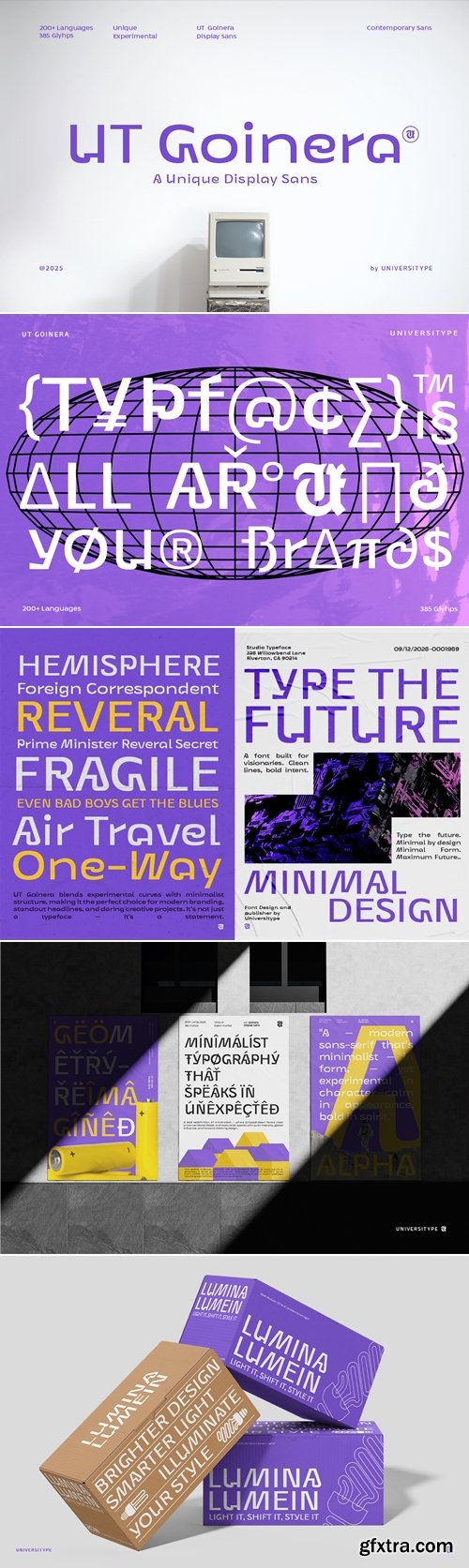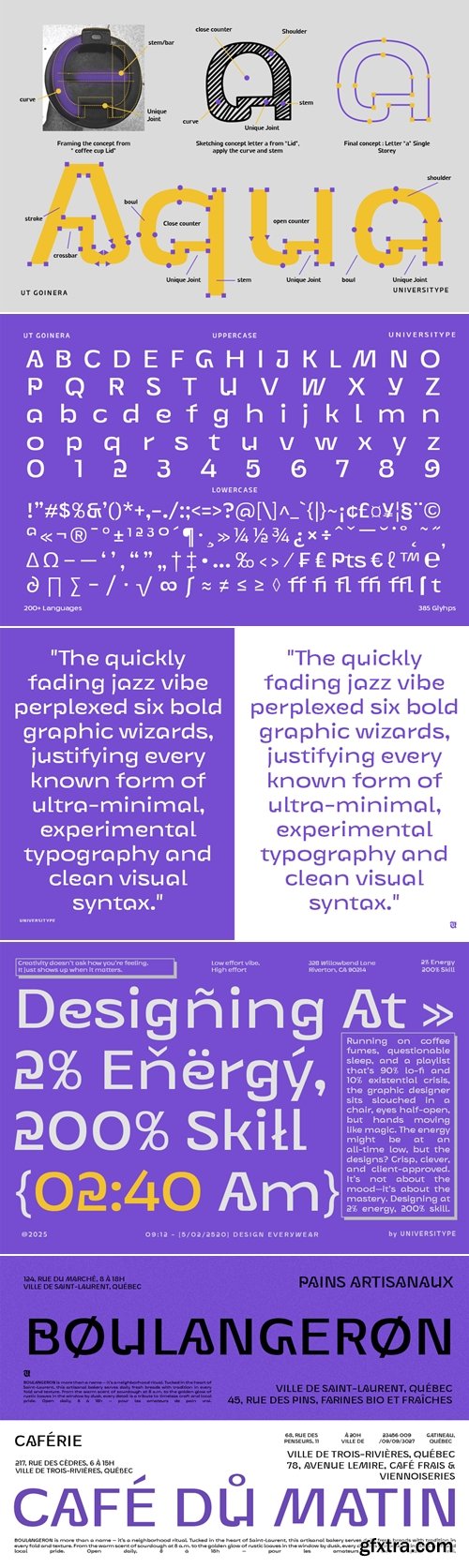
- UT Goinera: The Modern Typeface That Brings Warmth to Your Design In the world of typography, simplicity often meets sophistication in the most unexpected ways. UT Goinera is a prime example of this blend, a typeface that draws its inspiration from the everyday yet delivers a design that feels both thoughtful and modern. This minimal geometric typeface is perfect for designers, branding experts, UI/UX professionals, and creatives who appreciate clean structure with a touch of personality.
- The Inspiration Behind UT Goinera The journey of UT Goinera began with a seemingly mundane object: a coffee cup lid. The way the lid curves, locks together, and creates a satisfying closure sparked the idea of translating these tactile forms into a font structure. This inspiration led to the signature "joint" system seen throughout the letterforms, where curves, stems, and bars meet in a way that feels both industrial and soft. The single-storey "a" is a direct result of this exploration, embodying the typeface's unique blend of simplicity and detail.
Key Features of UT Goinera is designed with smooth curves, strong verticals, and distinctive joints, blending architectural precision with a soft, grounded tone. Here are some of its standout features: Single-storey "a" and soft, round terminals: These elements add a touch of warmth and approachability. Signature joint system: Inspired by real-world forms, this system gives the typeface its unique character. Geometric rhythm: The balanced and readable design ensures that UT Goinera looks great in both large display and small text. Friendly yet ordered: The typeface maintains a sense of structure while feeling approachable and modern. Technical Details UT Goinera is designed to be user-friendly and compatible with major design platforms. Here are some technical details: Formats: Available in OTF, TTF, and WOFF formats. Character set: Includes uppercase, lowercase, numerals, punctuation, and multilingual support. Smooth kerning and refined spacing: Ensures optimal readability and aesthetics. Optimized for both screen and print: Whether you're designing for digital or print media, UT Goinera performs well. Compatibility: Works seamlessly with Adobe, Figma, Canva, and all major design platforms. Note : Image assets are not included and for purposes only